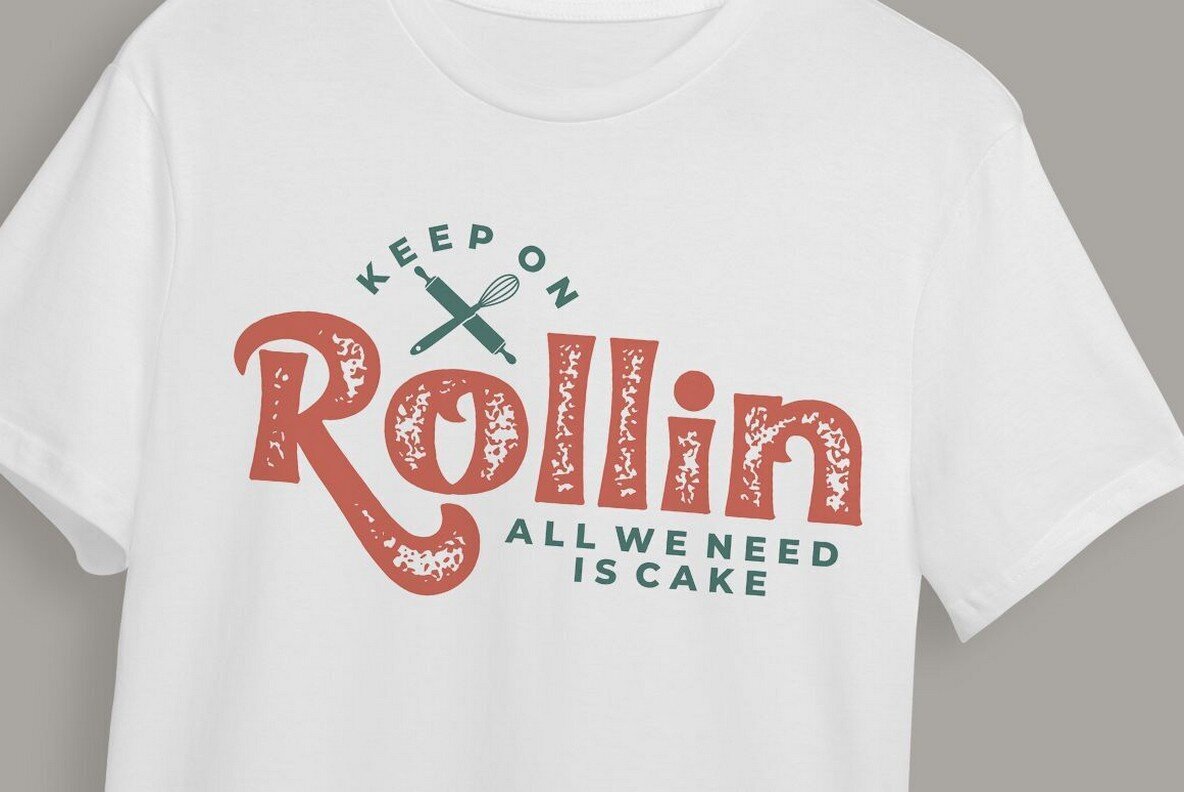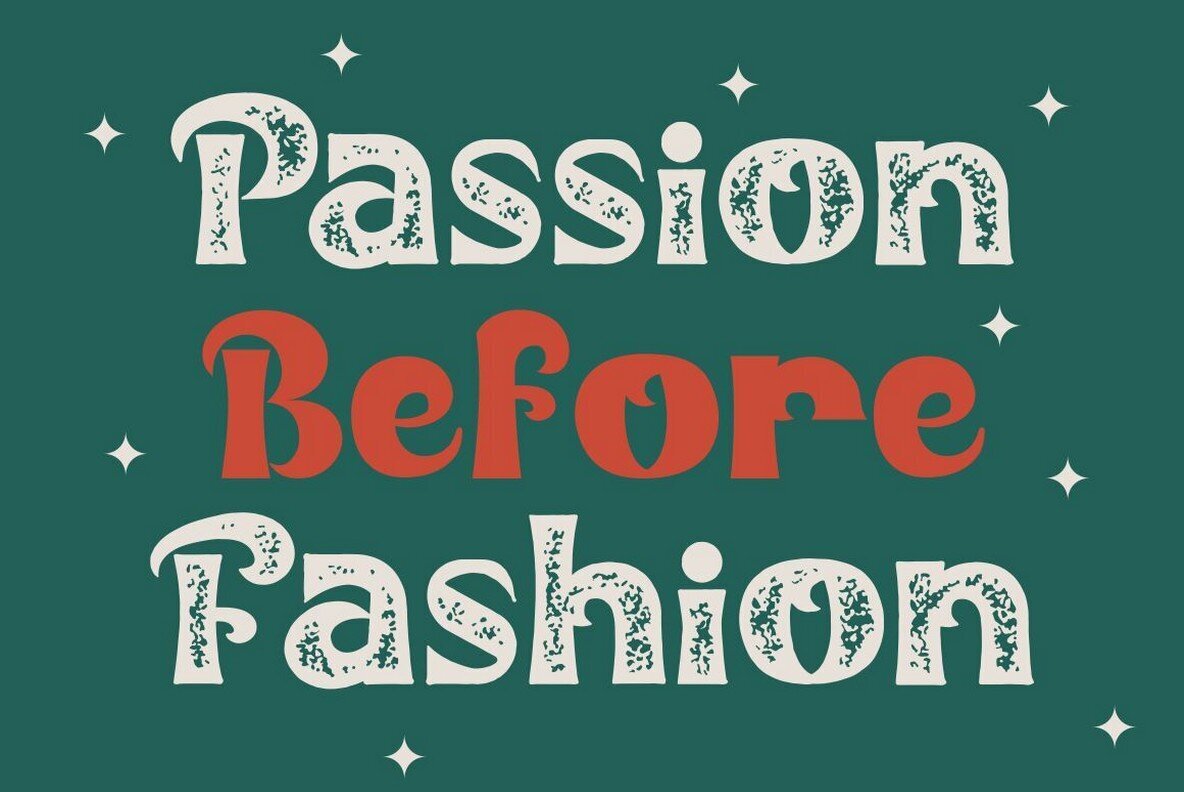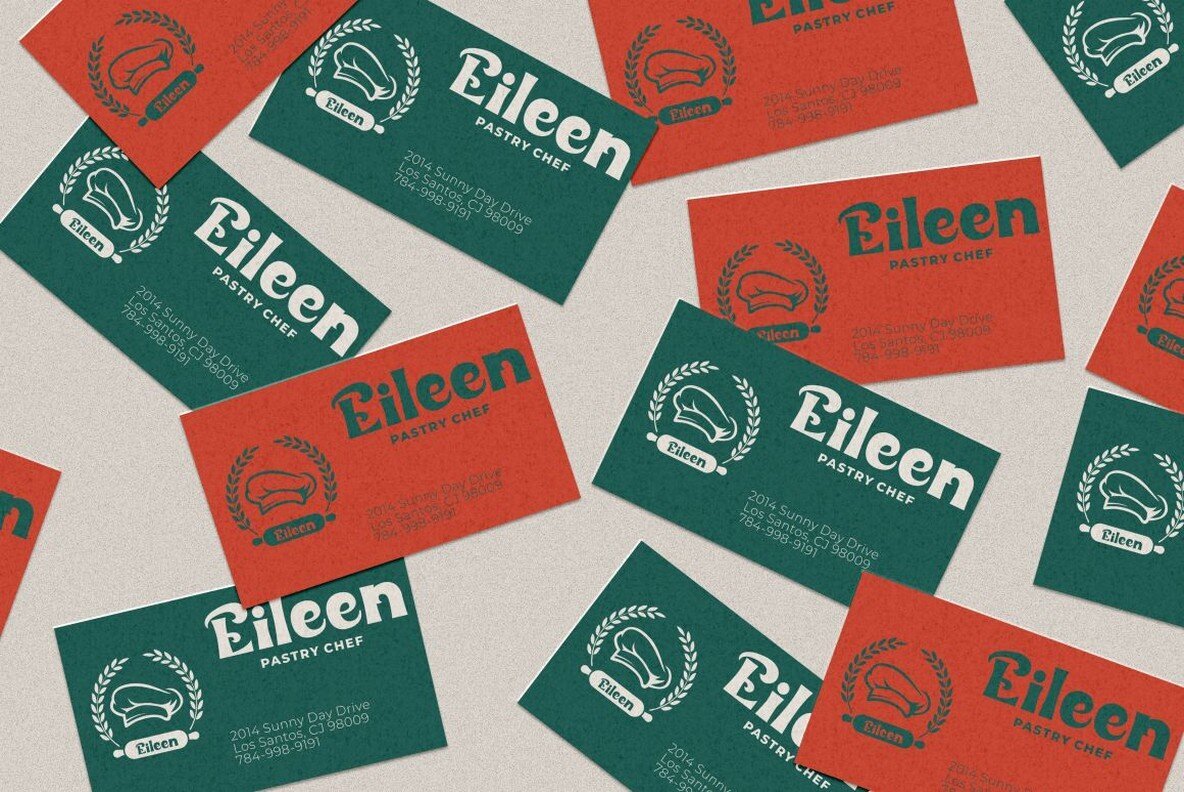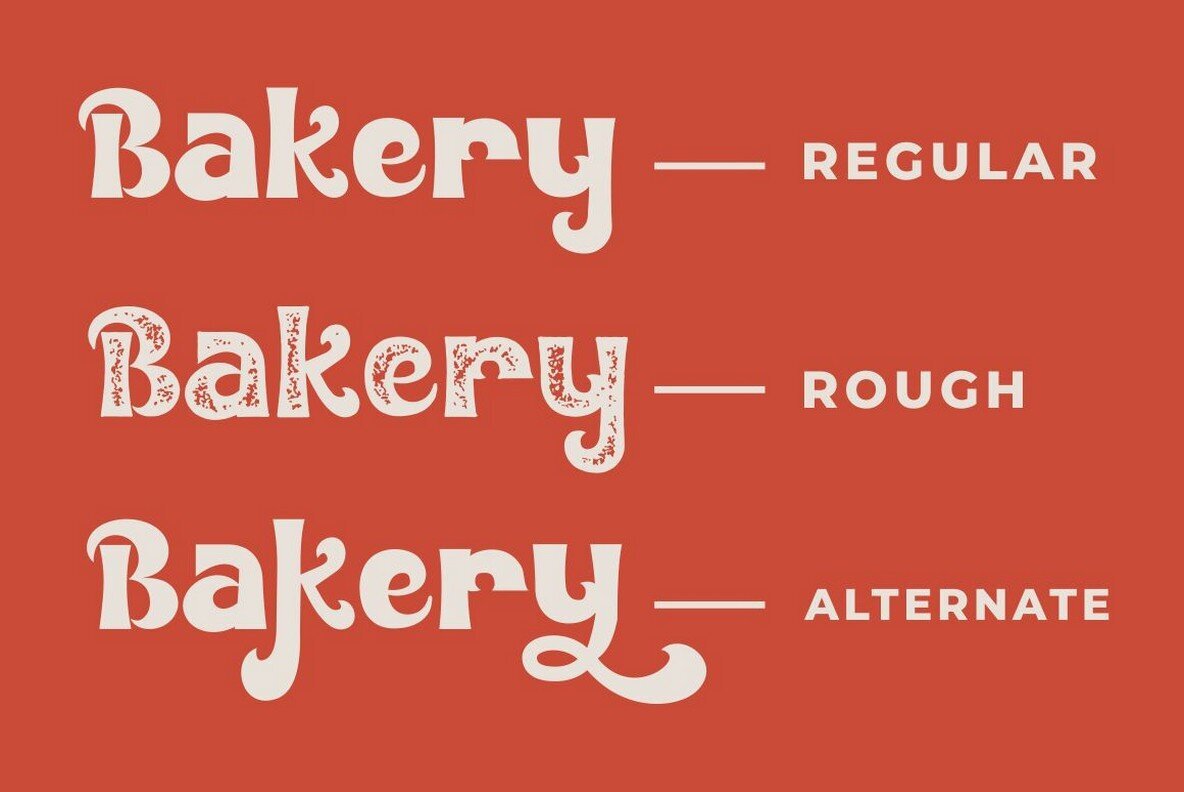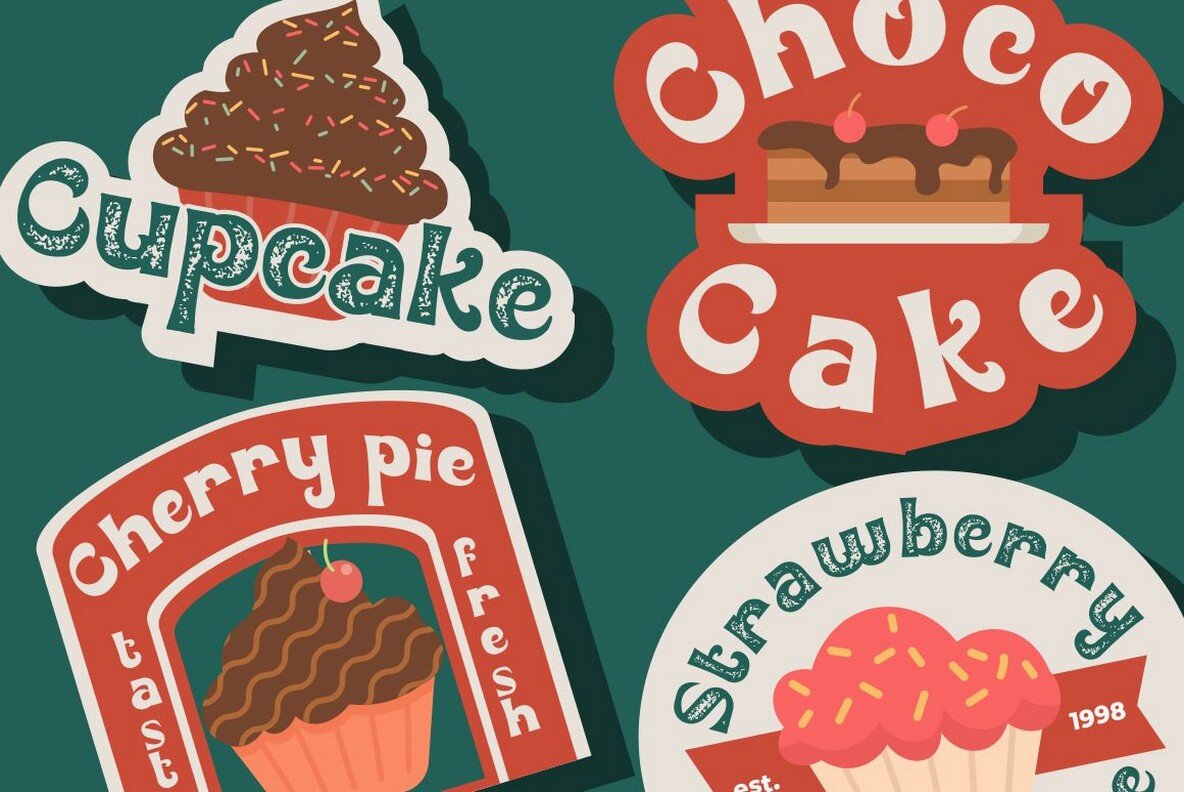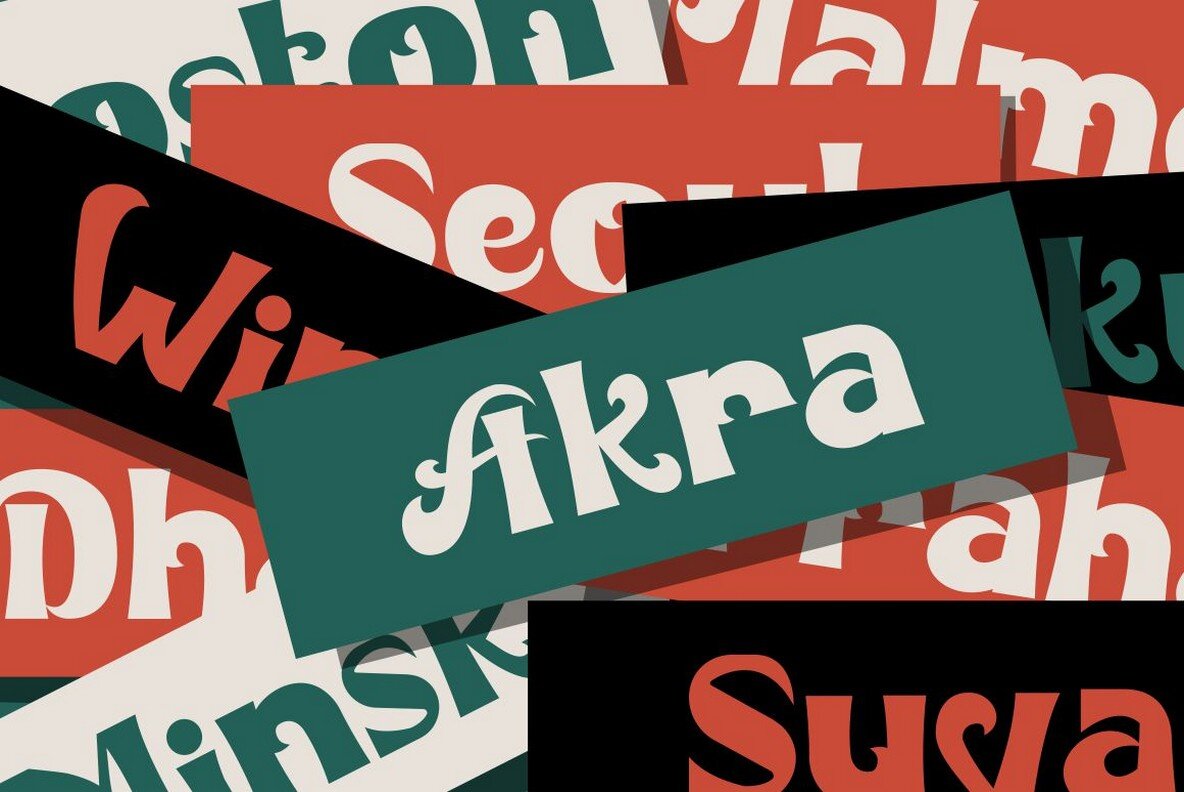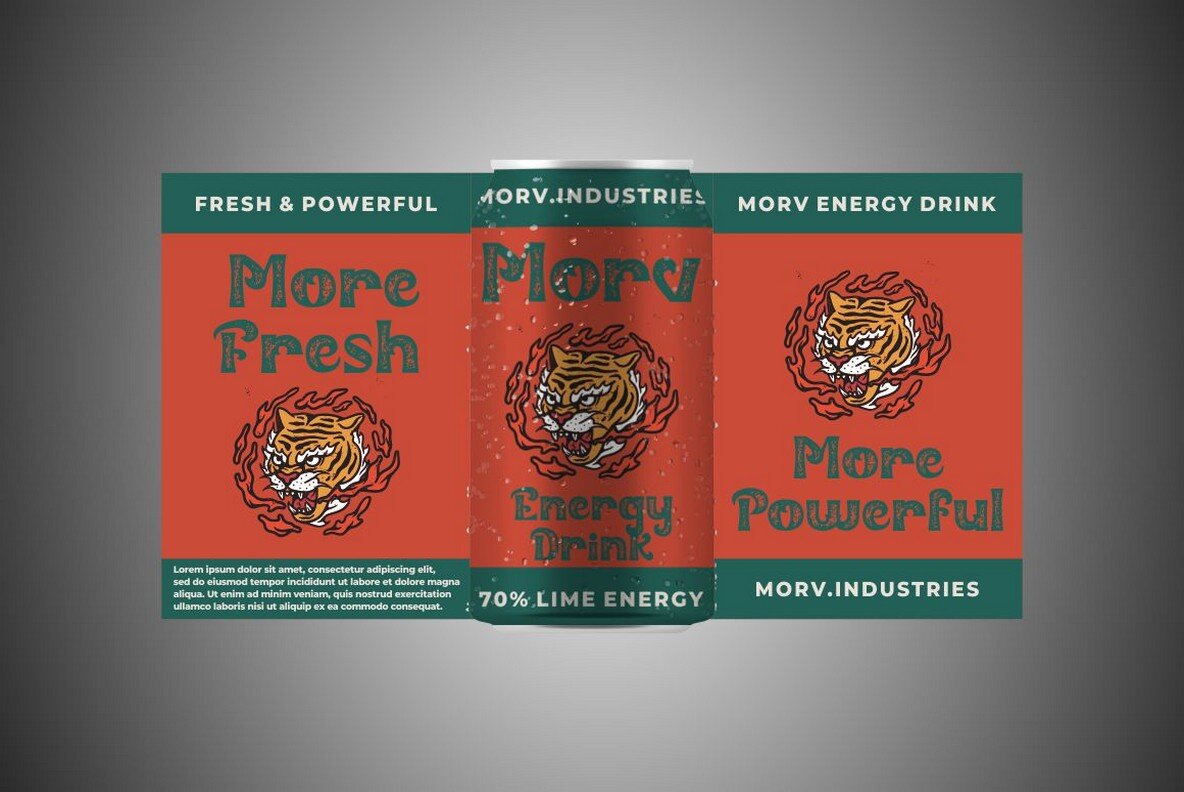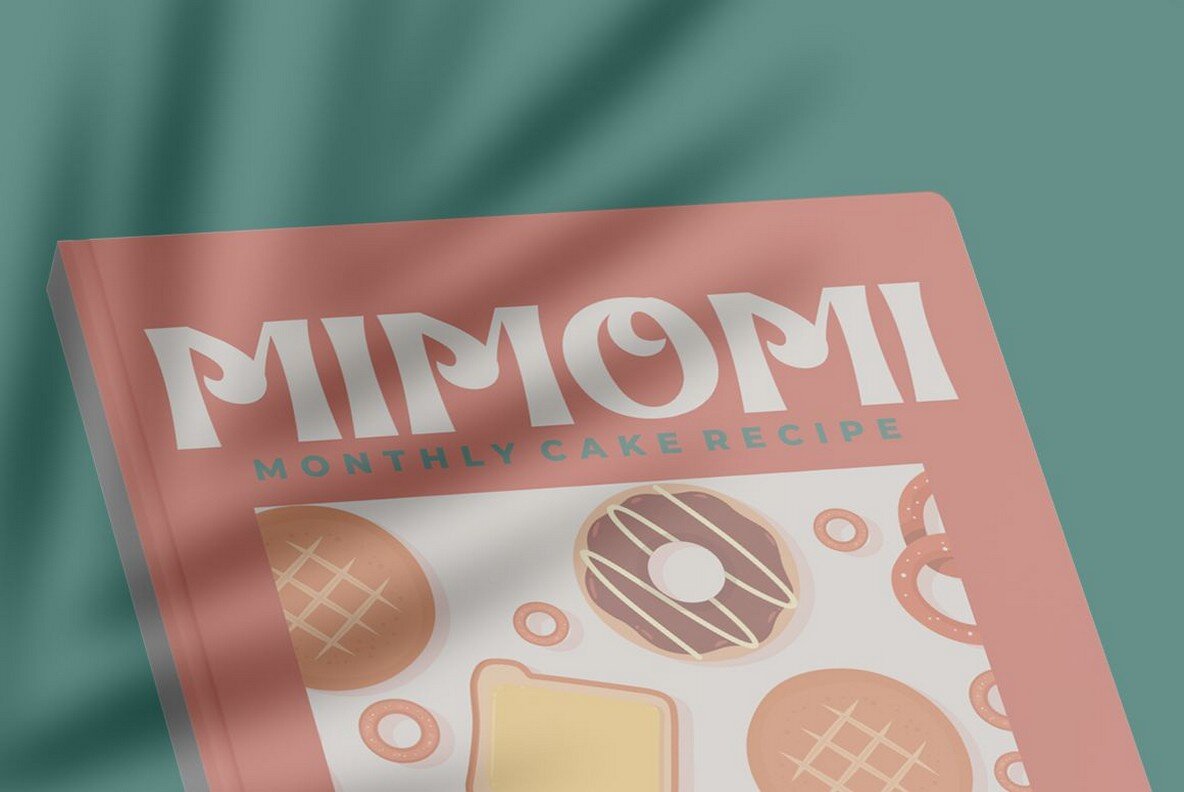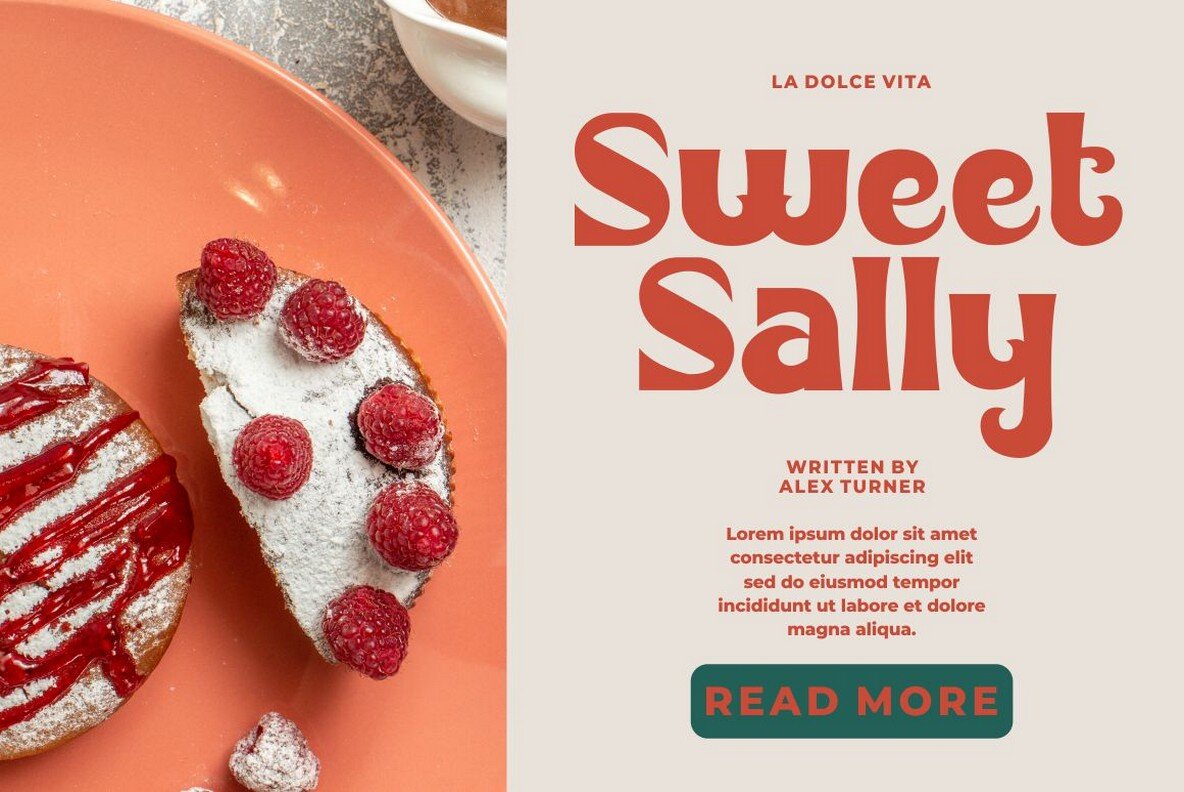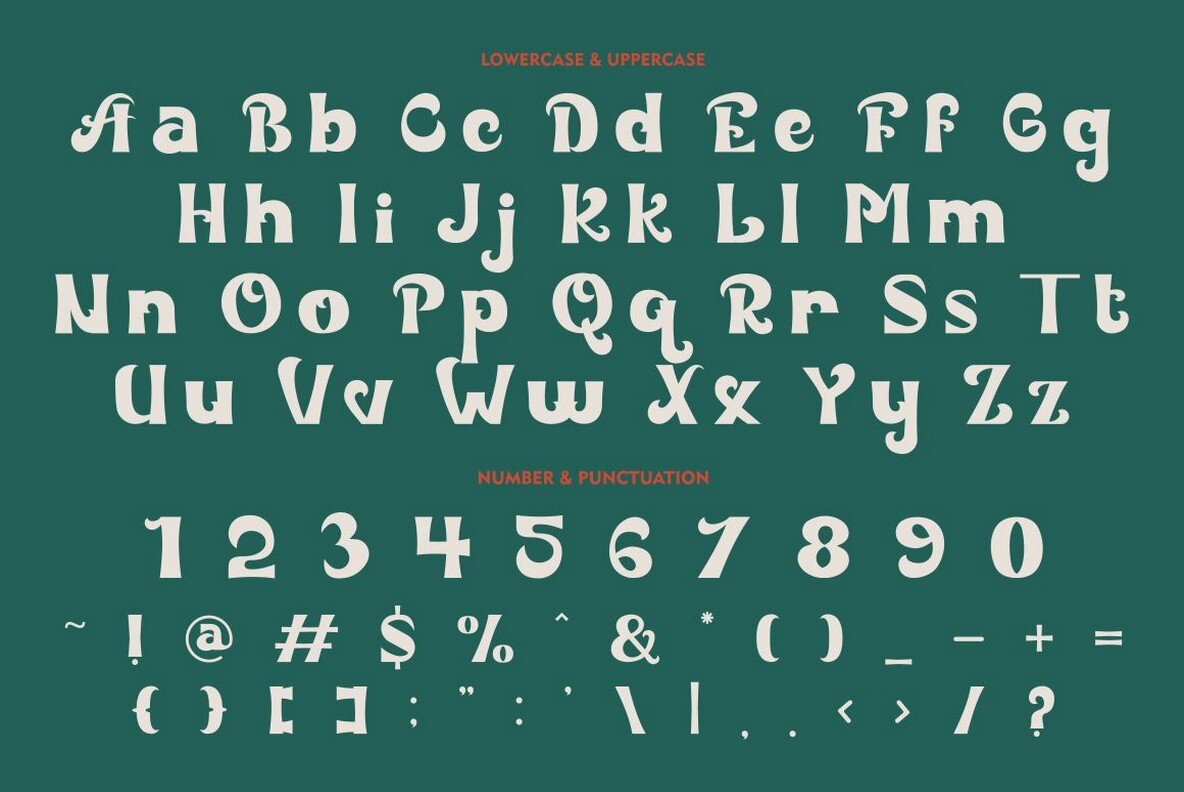
Elastic Heart Font
Elastic Heart Regular
Elastic Heart Texture
Elastic Heart captures the essence of the 60s and 70s with its bold and unique character. Designed to complement both large and small layouts, this font offers a delightful blend of vintage allure and modern clarity. Perfectly suited for retro-themed projects, Elastic Heart adds a groovy touch to headings, covers, posters, logos, and more. The stylish ligatures and extensive alternative glyphs provide incredible versatility, making it an excellent choice for diverse design needs. Its multilingual capabilities ensure your message resonates across different languages, adding a touch of retro charm to any project.Elastic Heart: A Vintage Display Font With Charm